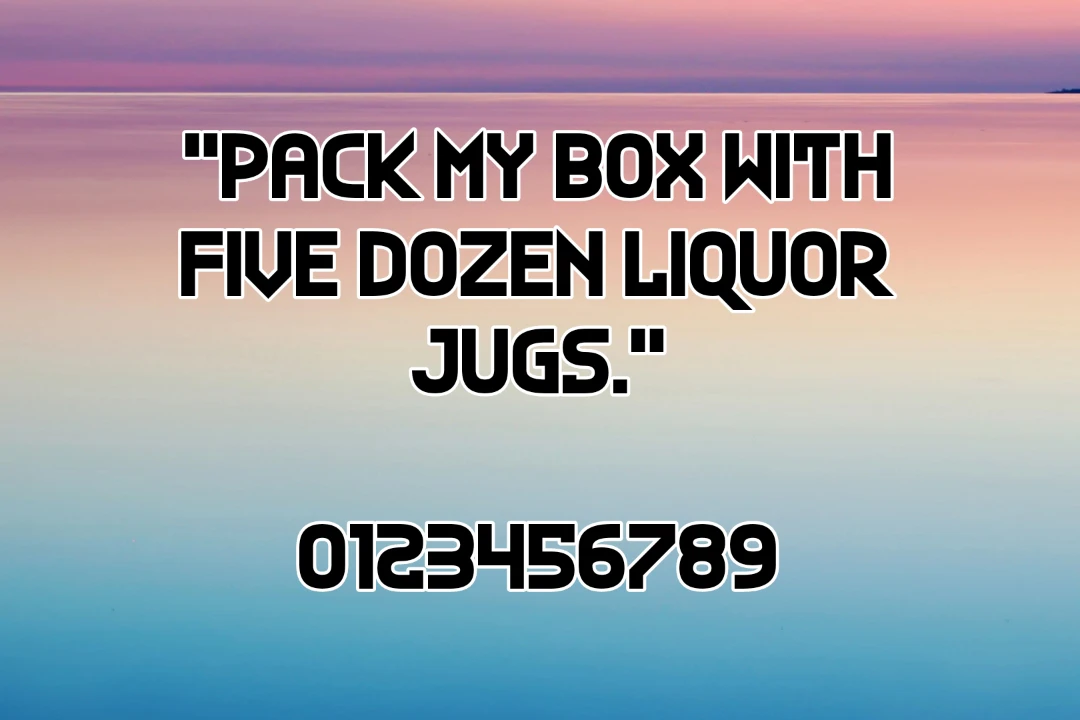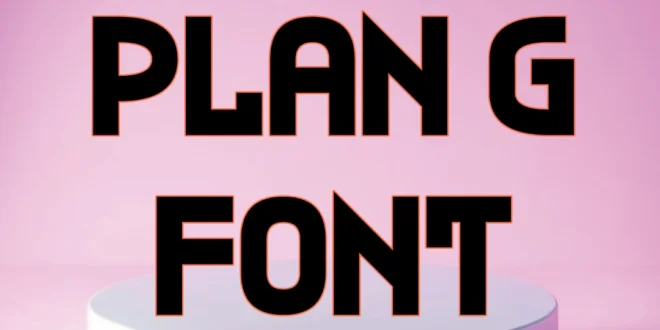
Plan G Font is a contemporary typeface designed by Chequered Ink. It is characterized by its clean and modern design, making it a versatile choice for various design projects. The font is free for personal use, with commercial licenses available.
Usage of Plan G Font
Personal Use: Plan G is perfect for personal projects, such as crafting unique graphics for social media, creating personalized invitations, or designing logos for small businesses. Its sleek and modern aesthetic ensures that any design will look professional and stylish.
Commercial Use: For commercial purposes, Plan G can be a great asset in branding, marketing materials, and product packaging. Its versatility allows it to be used in a wide range of applications, from headlines and advertisements to web design and corporate identities. Businesses can leverage Plan G’s modern appeal to enhance their brand’s visual identity.
Key Features and Application
Design Flexibility: Plan G’s clean lines and modern style make it adaptable for various design contexts, whether for digital or print media. It works well in both large and small sizes, making it suitable for headlines, body text, and everything in between.
Customization: The font offers a range of customization options, allowing designers to adjust colors, sizes, and styles to fit the specific needs of their projects. This flexibility ensures that Plan G can be tailored to match the unique aesthetic of any brand or project.
| Style | Slab Serif |
What is Plan G Font?
Plan G is a versatile and modern font designed by Chequered Ink. Known for its sleek and clean design, it is perfect for a variety of creative projects, including branding, product packaging, and web design.
Who designed Plan G Font?
It was designed by Chequered Ink, a creative design studio known for producing a variety of innovative fonts and digital assets.